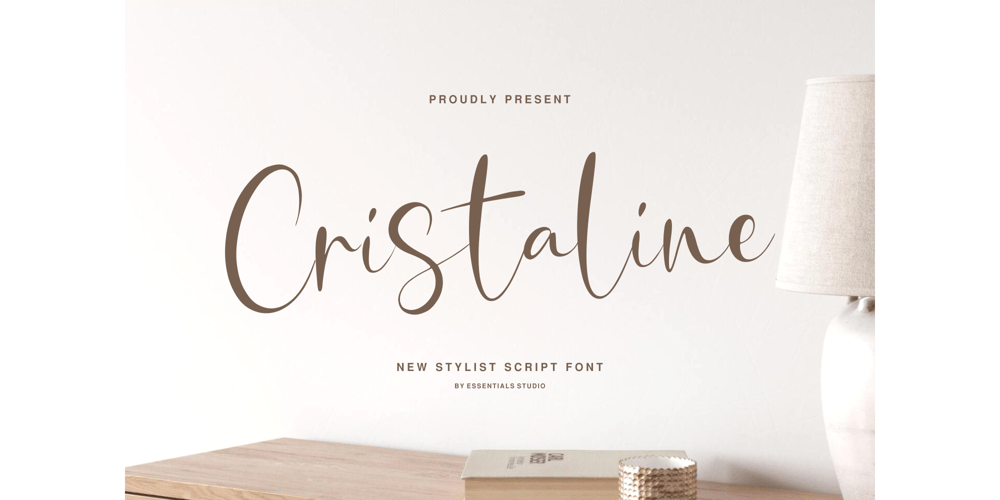
Crystaline Font Family was designed by Sulthan Mada Maulana Tsani and published by Essentials Studio. Crystaline contains 1 styles and family package options. Cristaline is a dazzling handwritten font that exudes charm and elegance. With its fluid strokes and intricate details, it adds a touch of sophistication to any project. Whether used for invitations, branding, or social media graphics, this font captivates with its unique personality and effortless beauty.